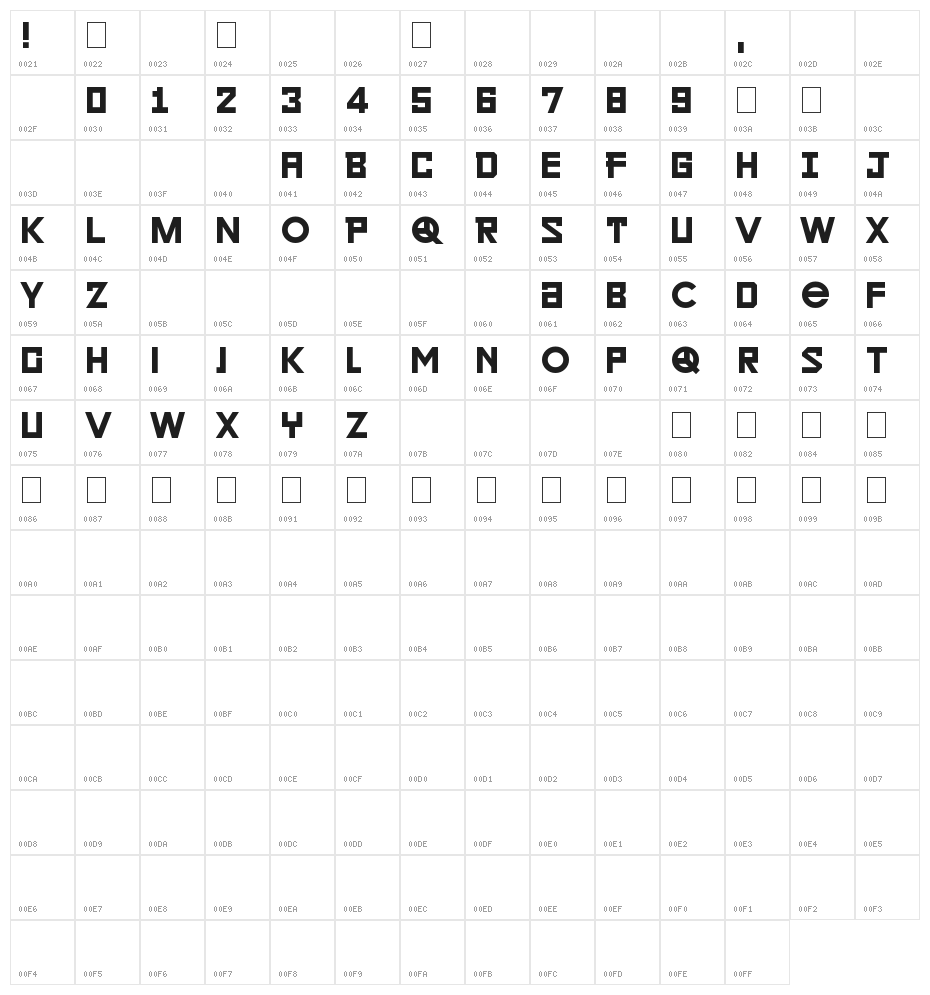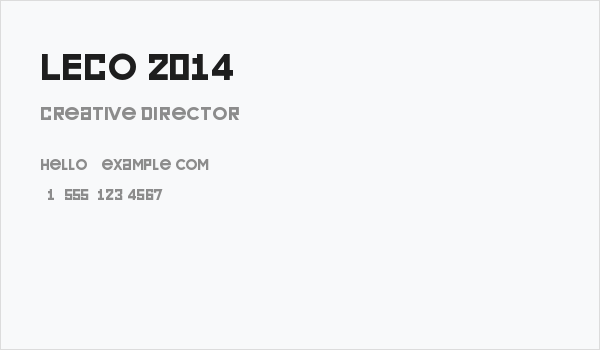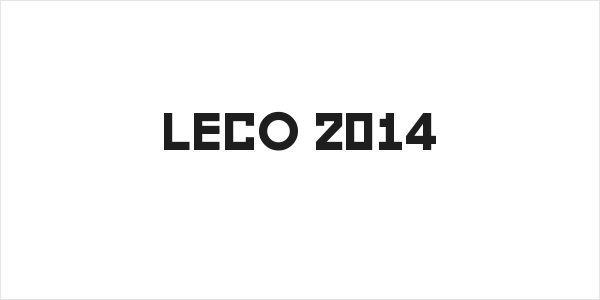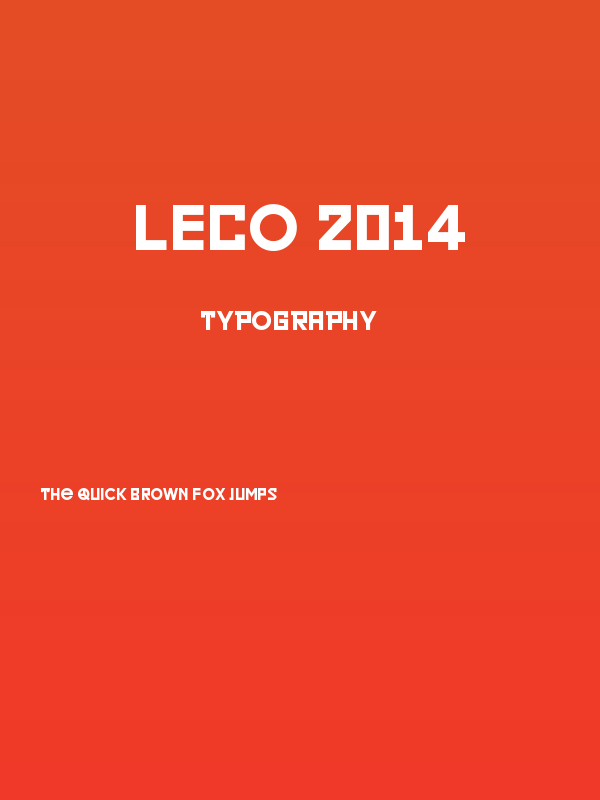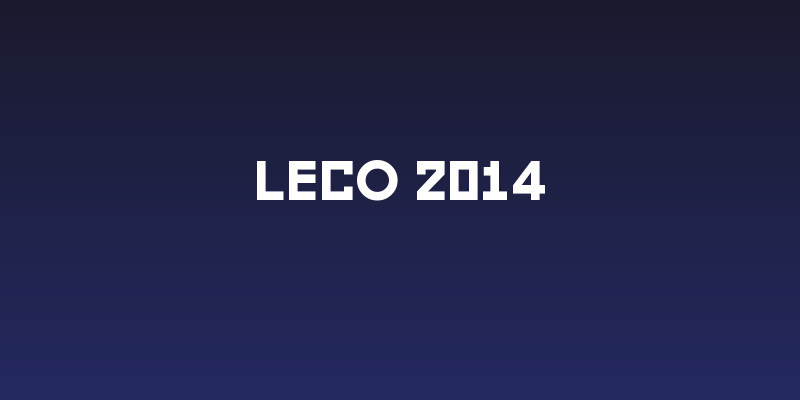
LECO 2014 Font
LECO 2014 Description
This font features a bold, geometric design with a strong emphasis on angular shapes and sharp edges. The uppercase letters are characterized by their blocky, robust forms, while the lowercase letters maintain a consistent style that complements the uppercase. The numbers are equally bold, ensuring readability and impact. The special characters are designed to match the overall aesthetic, providing a cohesive look across all glyphs. The font's style is modern and assertive, making it suitable for projects that require a strong visual presence.